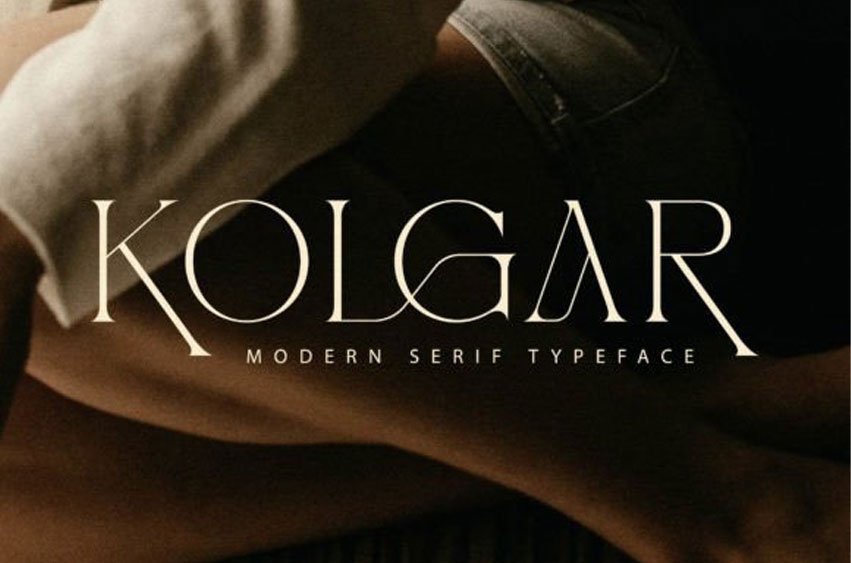
Kolgar Font is a modern and classy serif font with a modern twist.
No matter the topic, this font will be an incredible asset to your fonts’ library, as it has the potential to elevate any creation.